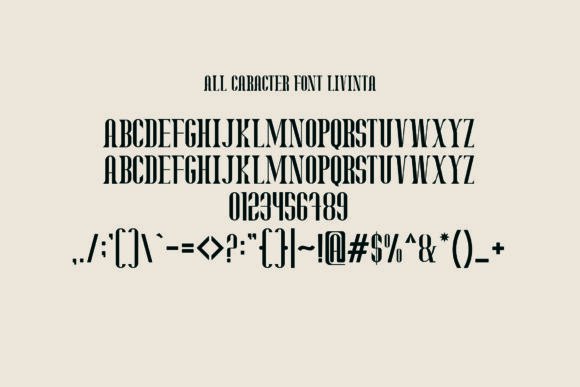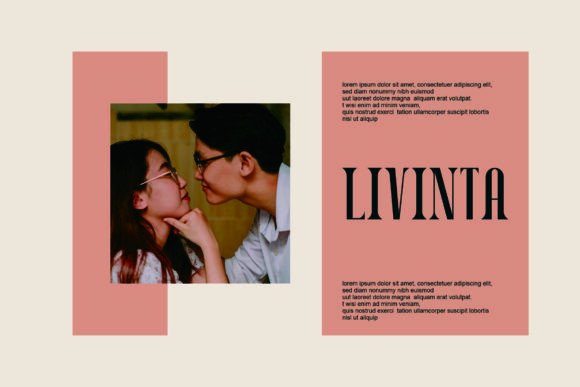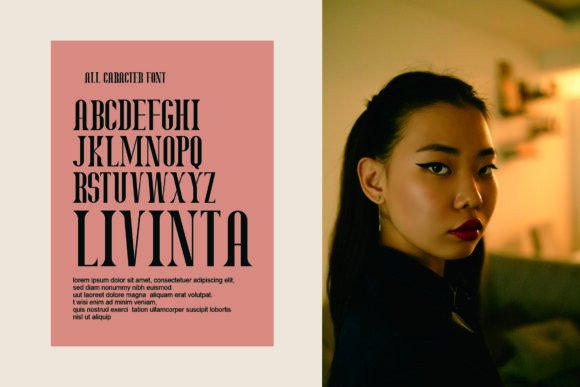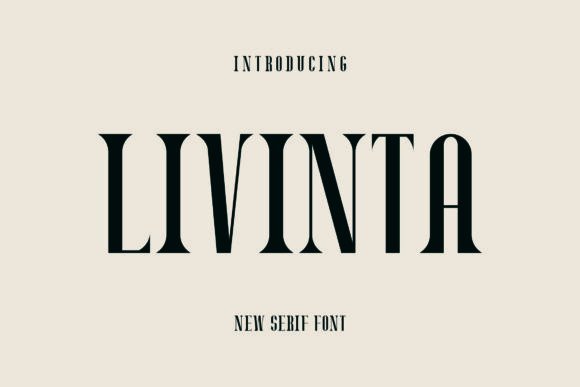
Introduction to Livinta Font
Livinta is an elegant and bold serif font.
Fall in love with its incredibly versatile style and use it to create gorgeous wedding invitations, beautiful stationary art, eye-catching social media posts, and much more .
Why Choose Livinta Font?
Livinta Font offers exceptional quality and versatility, making it a valuable addition to your design toolkit. Whether you’re creating for personal projects or commercial use, Livinta Font delivers professional results.